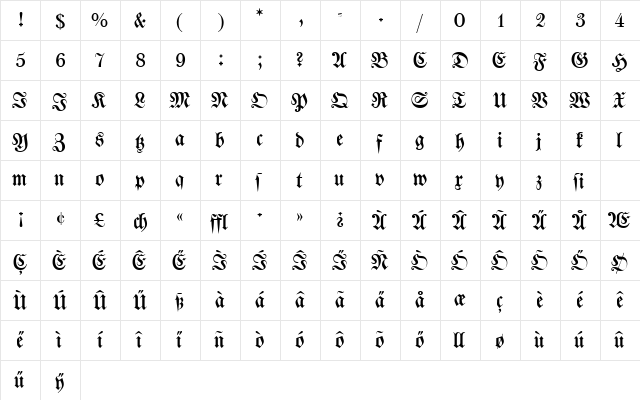
WalbaumFrakturEF Regular
Design Context for WalbaumFrakturEF Typeface
WalbaumFrakturEF draws on the rich tradition of blackletter calligraphy, with dense, angular strokes that evoke medieval manuscripts and old-world craftsmanship.
A natural fit for music packaging, gothic editorial design, and any project that needs historical weight.
Font Pairing: Pair with a clean neutral sans-serif for body copy to let WalbaumFrakturEF's character lead without overwhelming the composition.
Pro Tip: Reserve WalbaumFrakturEF for display and logo use — pair it with a clean sans-serif for body copy to prevent the composition from feeling oppressive.